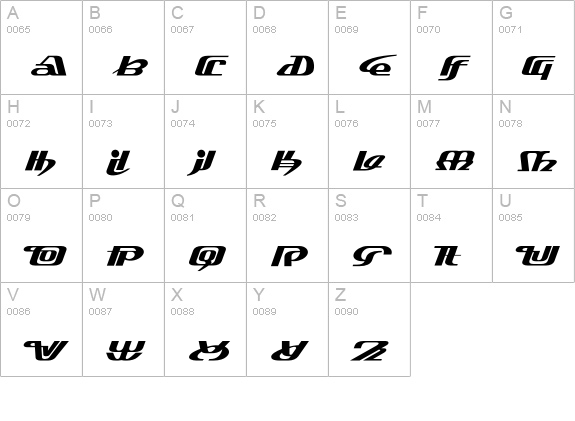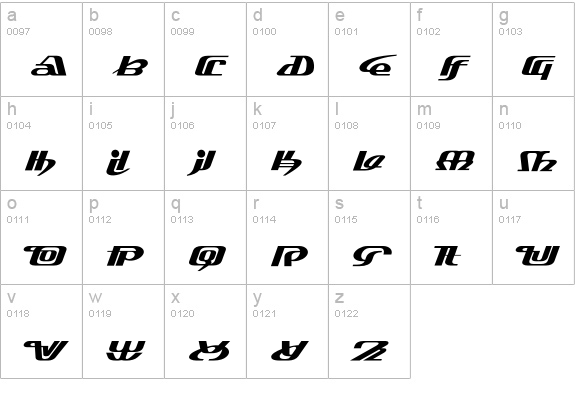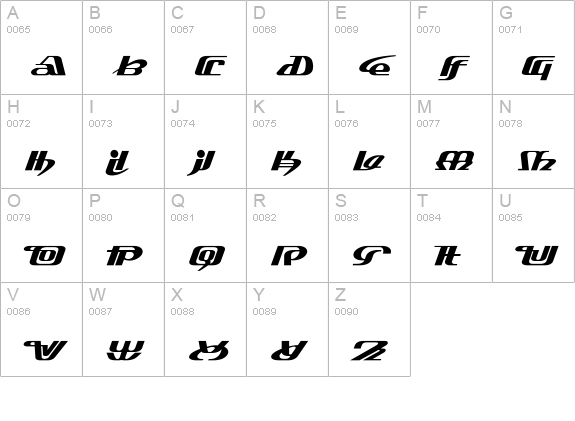
PTAF-Italic Font Details
PTAF-Italic is a distinctive, italic variant in the PTAF typeface family \xE2\x80\x94 well suited to design and typography projects.
PTAF-Italic is a sleek and modern font that exudes elegance and sophistication. Its italicized design adds a touch of flair to any project, making it perfect for use in branding, invitations, and other creative endeavors. The slanted letters create a sense of movement and flow, adding a dynamic element to your text. What makes PTAF-Italic even more appealing is that it is available for free download at FontsMarket.com. This means you can easily access this stylish font without any cost, making it a valuable addition to your design toolkit. Don't miss out on the opportunity to elevate your projects with the effortlessly chic PTAF-Italic font!